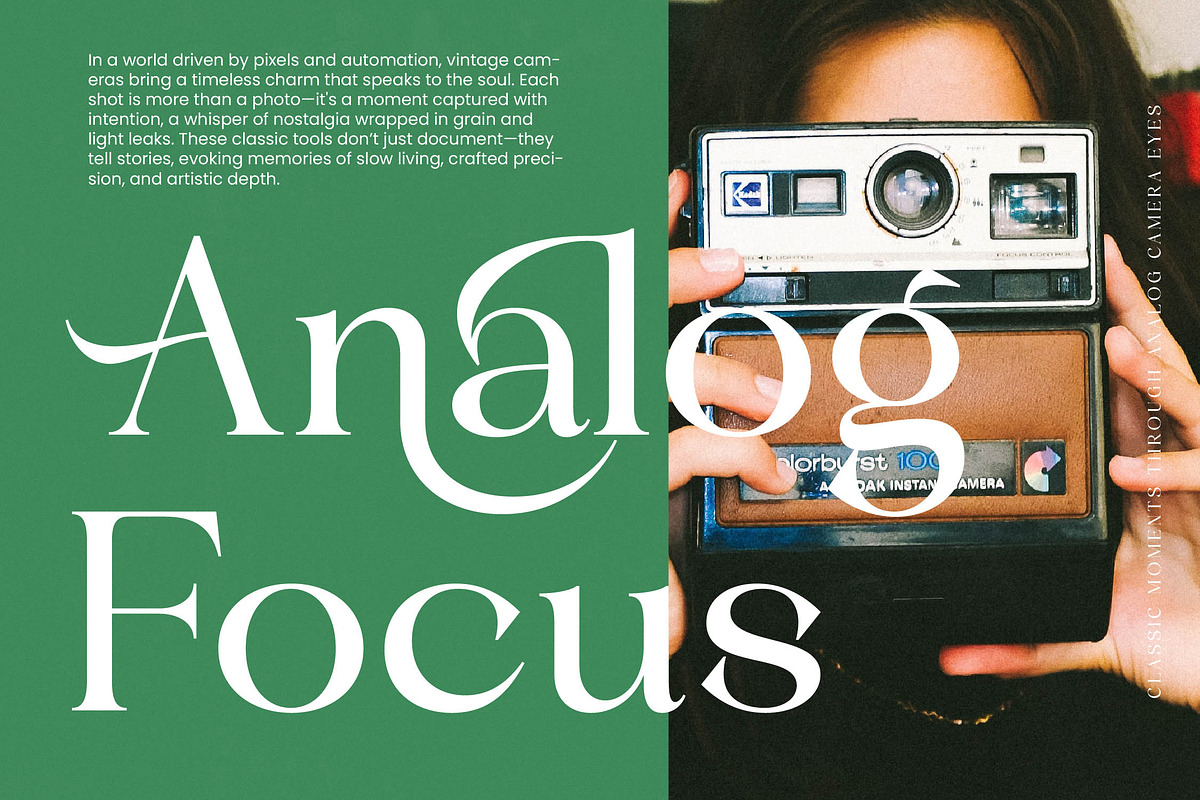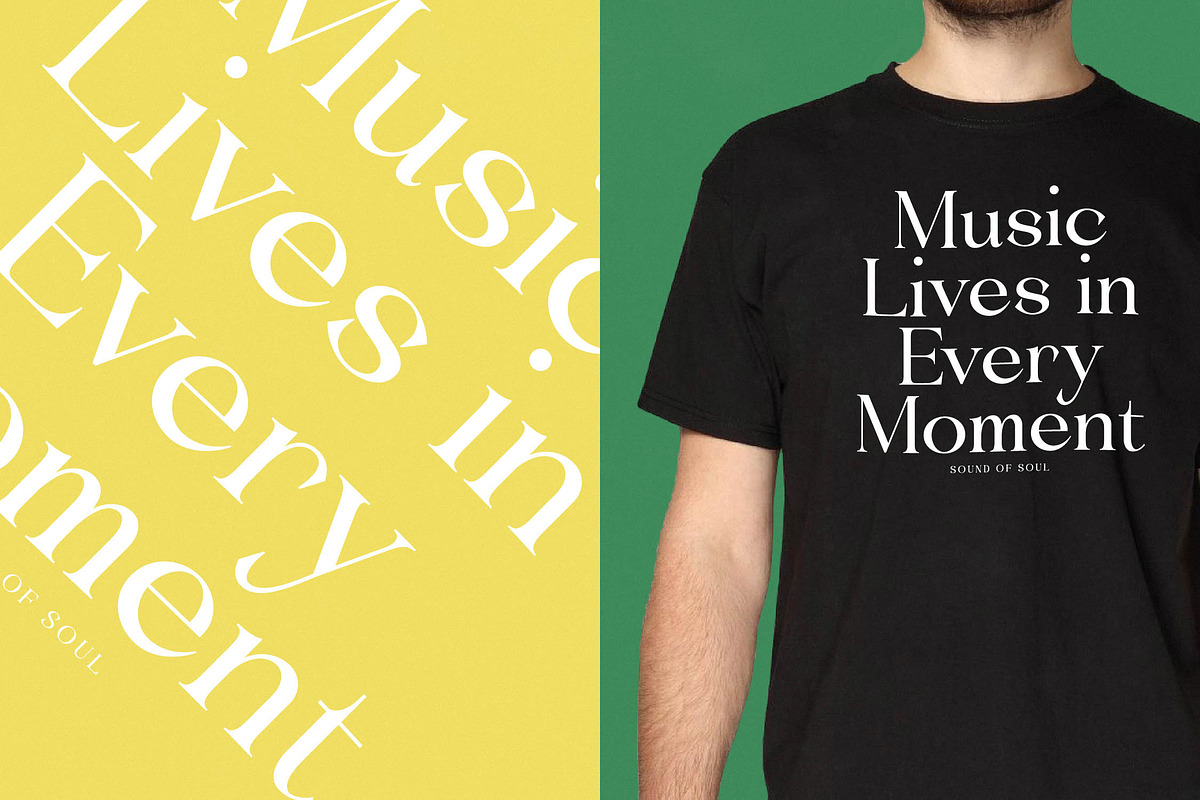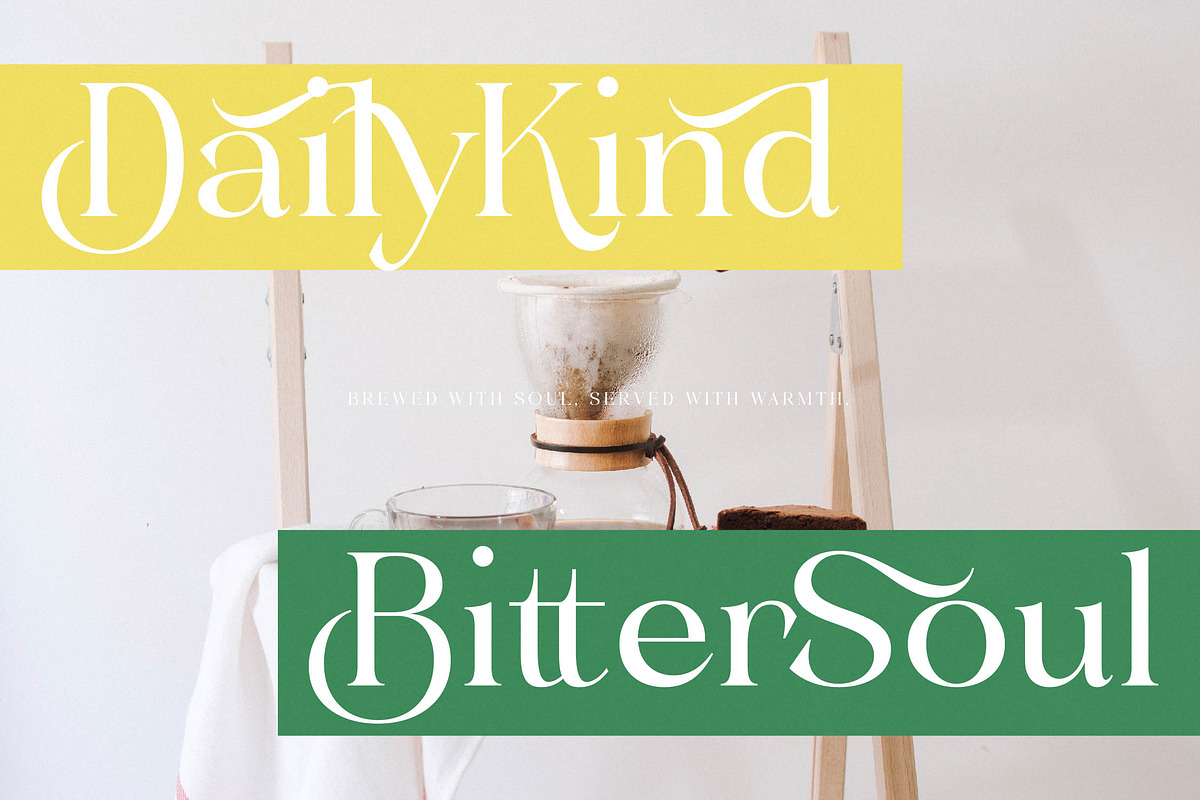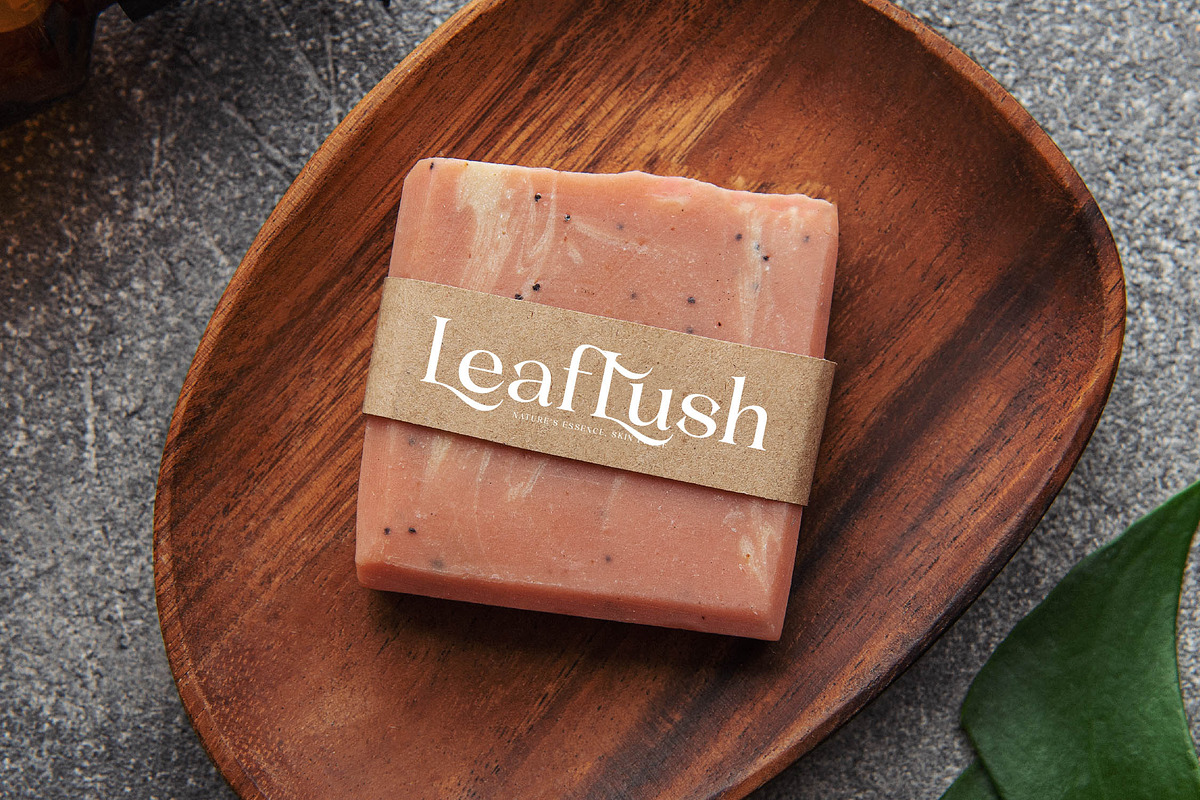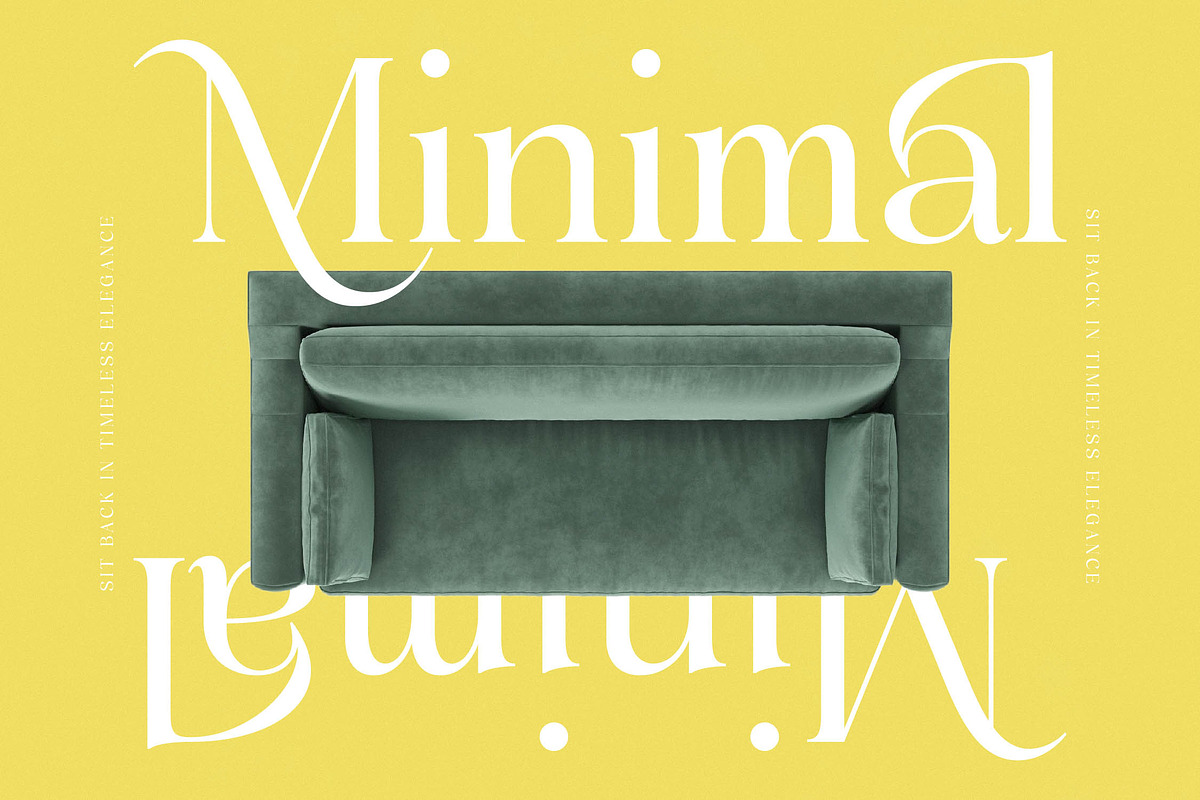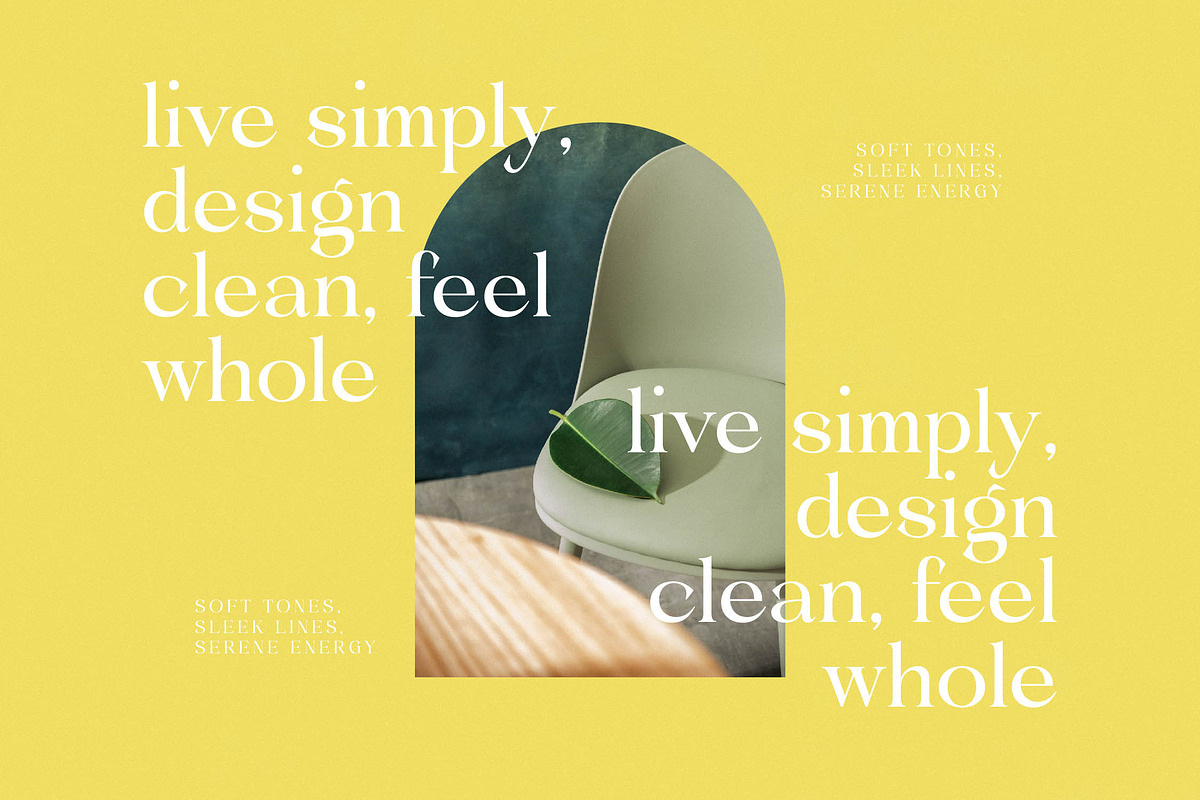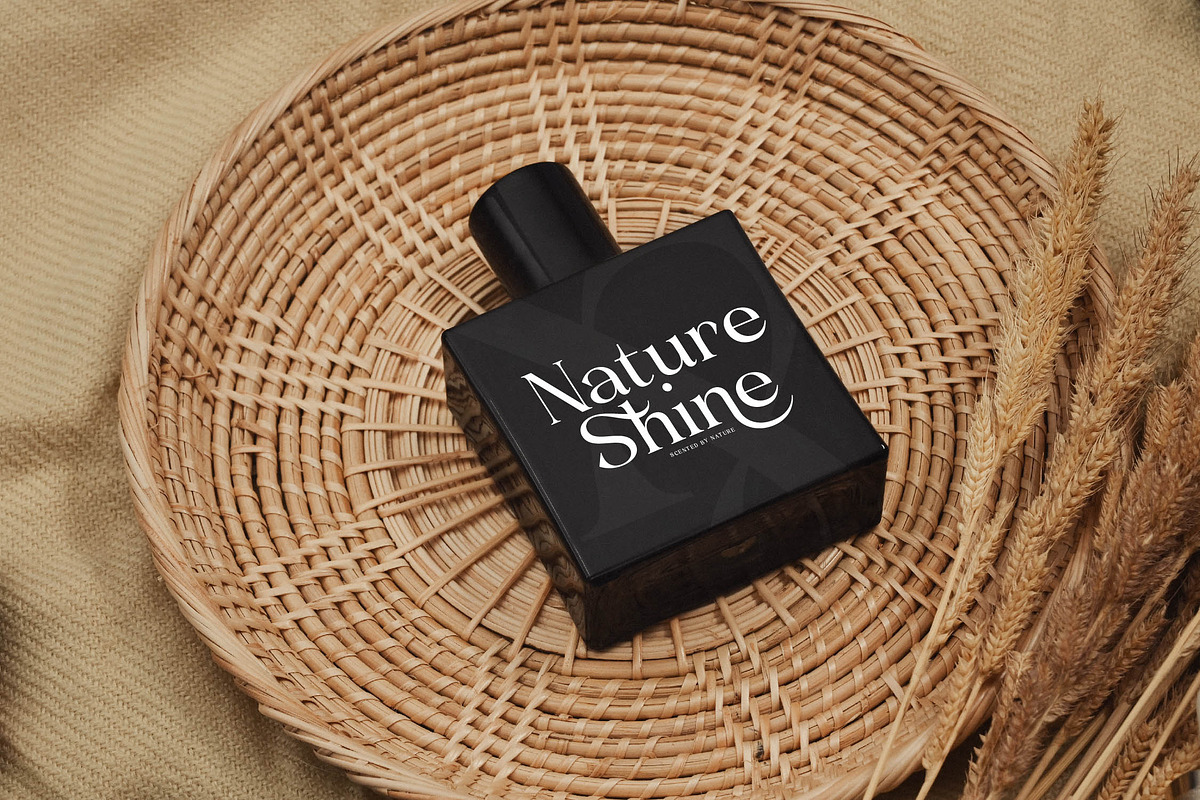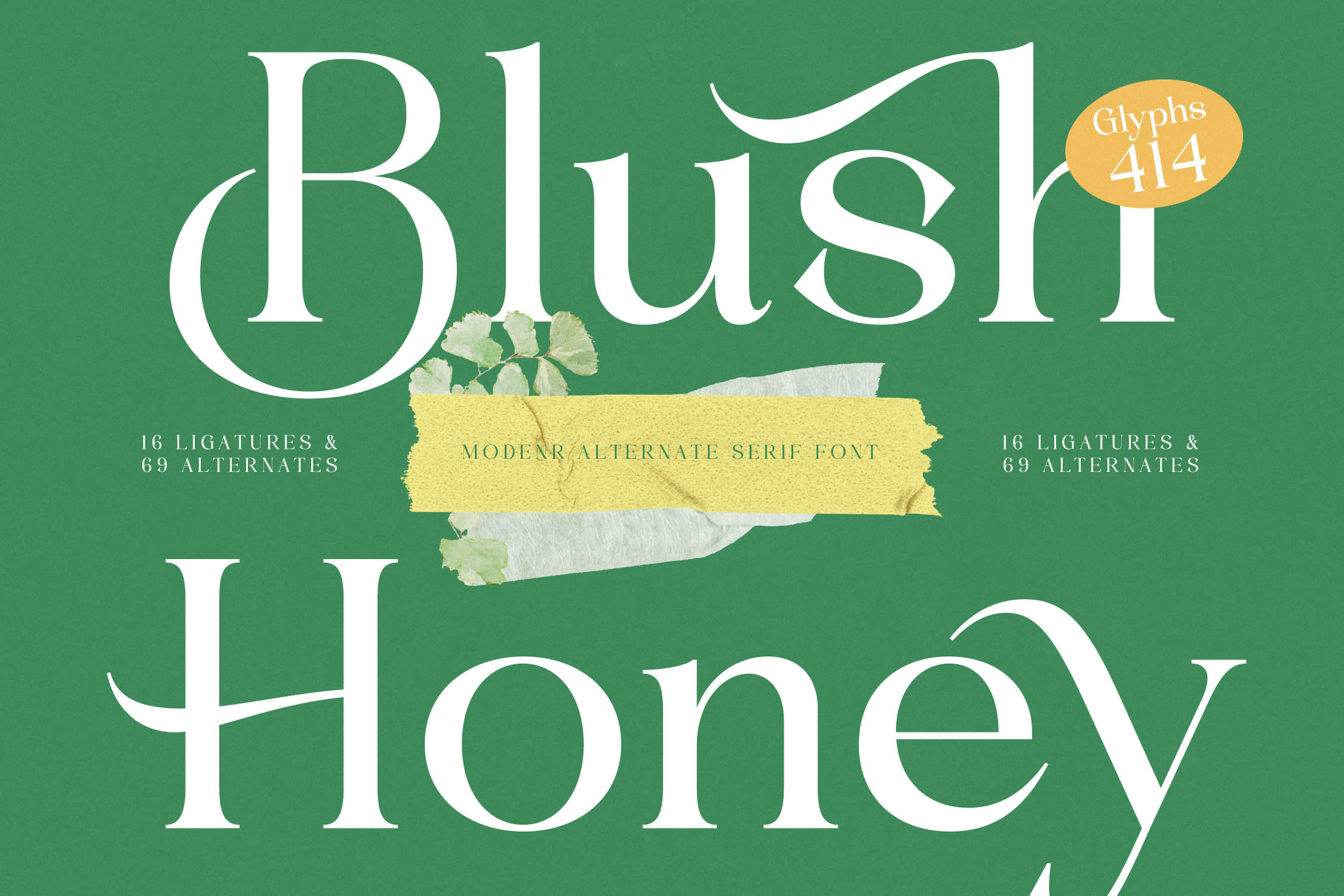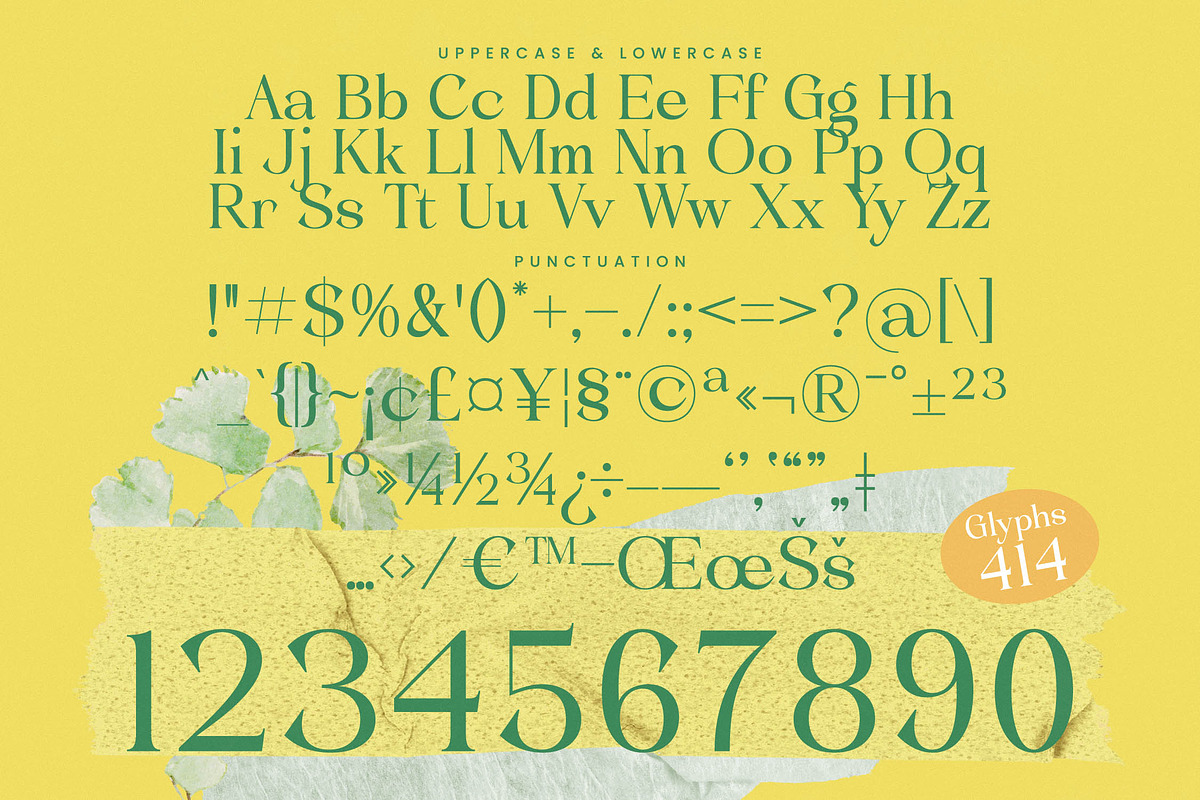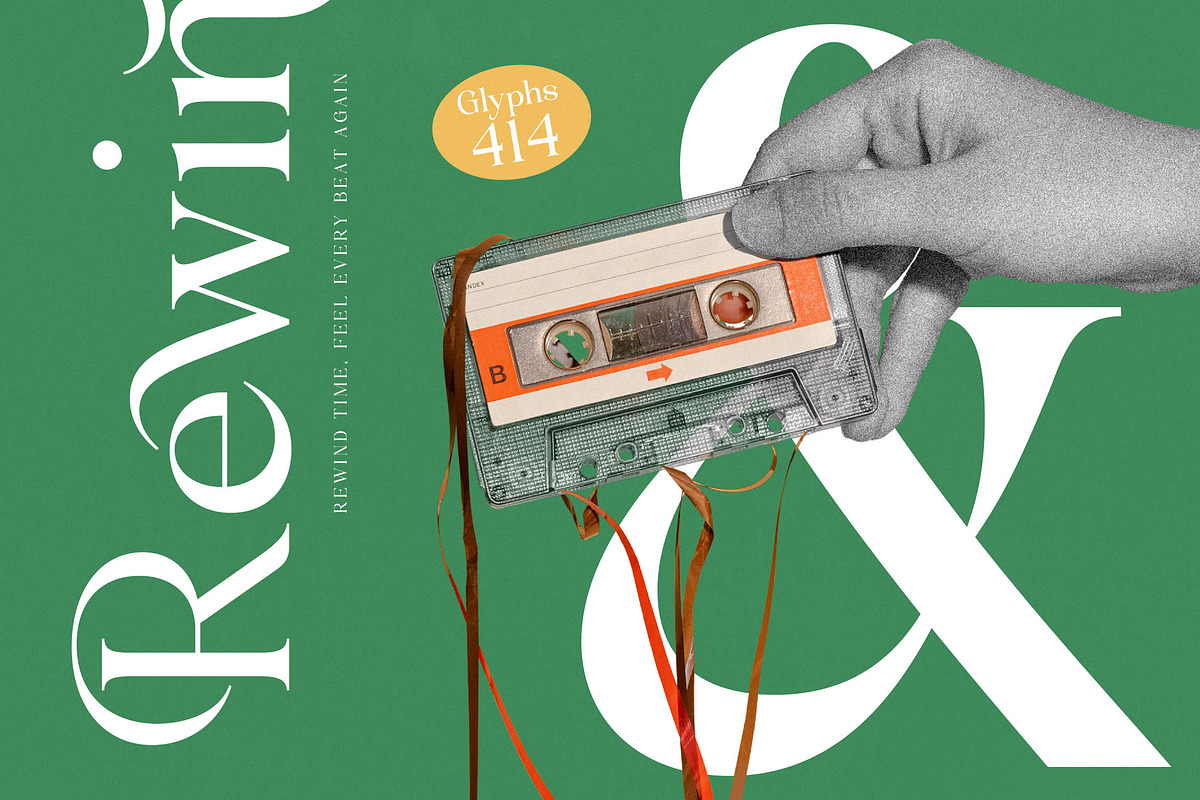
Blush Honey Modern Serif Font
Blush Honey is a breath of fresh air for designers seeking a perfect balance between organic warmth and high-end editorial sophistication. This stunning typeface transforms simple words into visual poetry, making it an essential addition to any modern creative toolkit.
Drawing inspiration from the fluid lines of botanical illustrations and the nostalgic charm of vintage high-fashion magazines, this font captures a unique cottagecore meets couture aesthetic. It evokes the feeling of a sun-drenched garden where every curve and swash tells a story of natural elegance and refined grace.
This modern serif display is engineered for maximum branding impact, offering a luxury typography experience that stands out in a crowded market. With its high-contrast serif strokes and delicate terminals, it serves as a premier editorial font for those who demand professional-grade aesthetics.
Perfectly aligned with the current modern serif trend, this typeface meets the growing demand for character-driven typography in contemporary design. It bridges the gap between classic structure and avant-garde flair, solidifying its place among the most versatile editorial display fonts available today.
Whether you are crafting a unique logo design or developing a cohesive branding identity, this font delivers exceptional results across packaging, wedding invitations, and high-end fashion layouts. Its versatility ensures a premium look for editorial spreads and digital storytelling alike.
Boasting a massive library of 414 glyphs, the set includes an expansive collection of ligatures and alternates that allow for endless customization. With full multilingual support and a wide range of international characters, it also features beautiful swashes to elevate your typography to a professional level.
- Ligature 16 Alternate 69